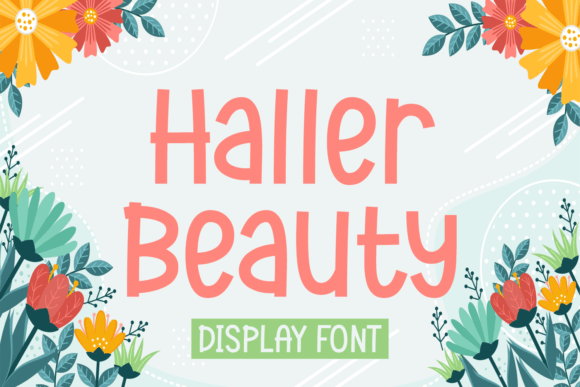
Introducing Haller Beauty Font, the ultimate choice for those seeking the best fonts for simple logos. Created by the talented KristoperRansz, this delightful font family falls under the display category, offering a unique combination of fun, cuteness, and smoothness. With its endless possibilities for creative combinations, Haller Beauty Font is perfect for crafting captivating logotypes, designing eye-catching stickers, creating playful kids' signs, and bringing life to various lettering projects.
When it comes to making a lasting impression, Haller Beauty Font reigns supreme. Its playful and whimsical nature instantly captures attention and evokes positive emotions. Whether you're aiming to create a logo that exudes joy, a sticker that stands out, or a sign that draws smiles, this font is your ultimate companion.
One of the key highlights of Haller Beauty Font is its versatility. It effortlessly adapts to various design styles, allowing you to explore endless possibilities. Whether you're going for a modern and minimalistic look or a vibrant and energetic vibe, this font has got you covered. Its seamless integration with different design elements ensures that your creations will always be visually stunning and aesthetically pleasing.
Let your imagination run wild with Haller Beauty Font. With its wide range of characters, including uppercase, lowercase, numerals, and punctuations, you have the freedom to create personalized and engaging designs. Every letter is carefully crafted to maintain consistency and legibility, ensuring that your message is effectively conveyed.
In addition to its aesthetic appeal, Haller Beauty Font is designed with user-friendliness in mind. Its smooth curves and clean lines make it easy to read, even at smaller sizes. Whether you're printing your designs or showcasing them digitally, rest assured that your message will always be crystal clear.
Embrace the endless possibilities of Haller Beauty Font and elevate your design game. Let this font spark your creativity and breathe life into your projects. Its captivating charm and versatility make it a must-have for designers, marketers, and enthusiasts alike.